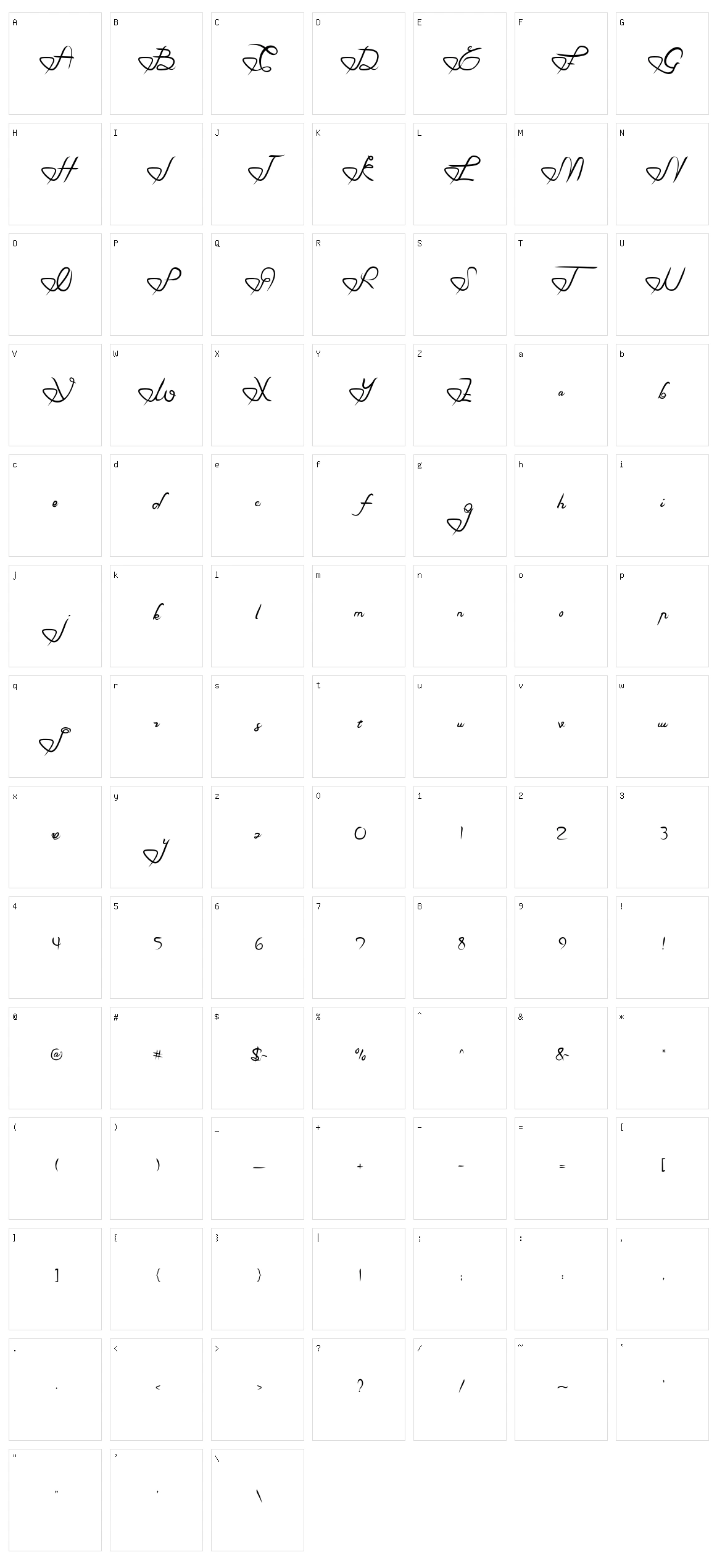
1. Activate standart ligatures!
2. Use "|" to access beautyfull tail. ex: Love| => Love (with tail on "e")
3. Use double space and tripple space to access awesome "love"